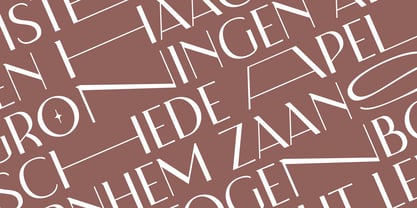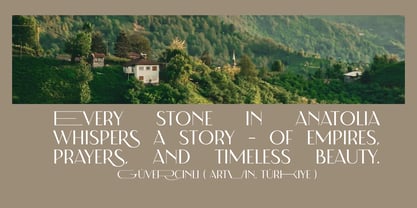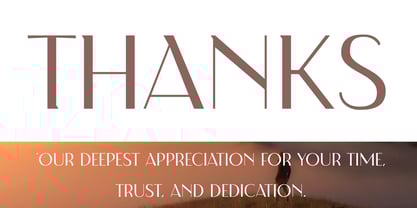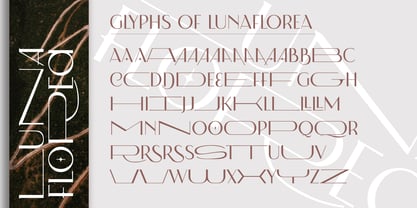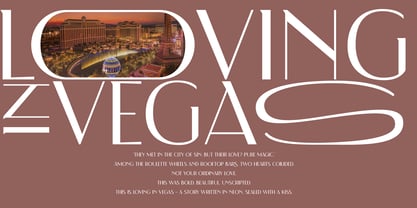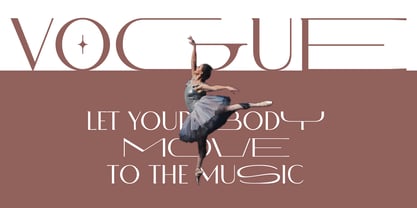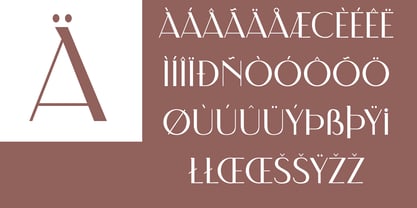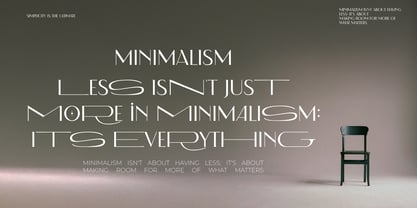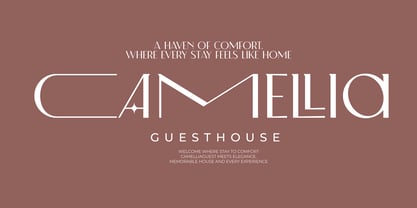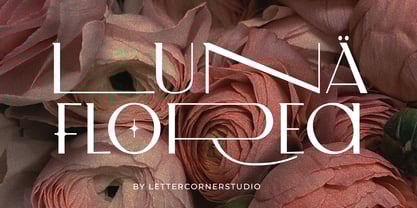
Luna Florea
by Mevstory Studio
Luna Florea is an elegant serif typeface inspired by 18th-century Didone. It has mixed uppercase and lowercase letters that share the same height and allows infinite combinations to give your project a unique style.
Luna Florea is well-suited for posters, branding, logotype, headlines, titles and editorial design. Give your project a touch of luxury and class.
Features
• Numbers, Punctuation and Symbol
• Discretionary Ligatures
• Multi Language Support
• Swashes